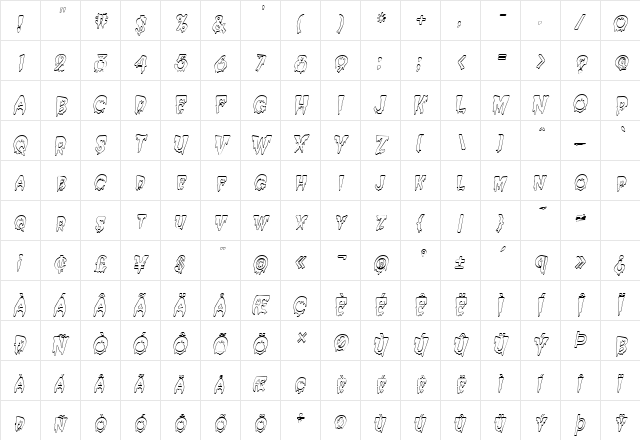
Creepy HollowCondensed Italic
Design Context for Creepy HollowCondensed Typeface
Creepy HollowCondensed carries an unsettling edge — its distorted letterforms are built to unsettle, perfectly suited to horror, Halloween, and dark creative work. The dynamic lean of this cut emphasises speed and emphasis in any layout.
Perfect for anything that needs to unsettle — game titles, horror branding, and macabre invitations.
Font Pairing: Pair with a clean neutral sans-serif for body copy to let Creepy HollowCondensed's character lead without overwhelming the composition.
Pro Tip: Use Creepy HollowCondensed at larger display sizes for maximum impact. Consider generous tracking to let the disturbing character of each letterform breathe.